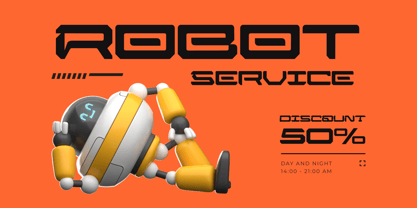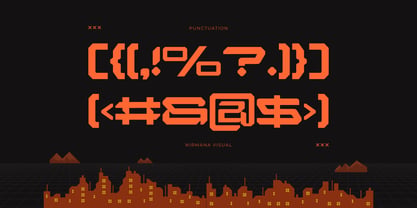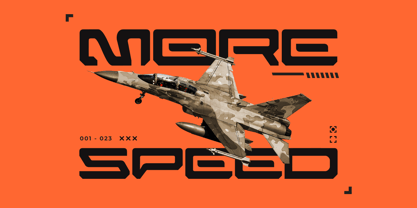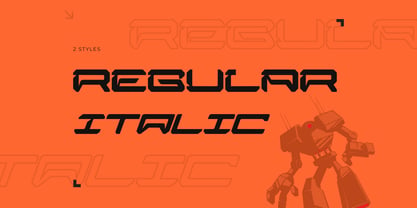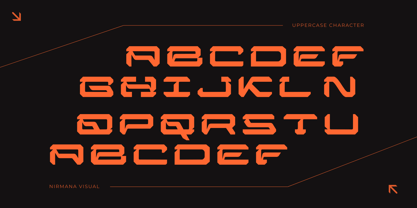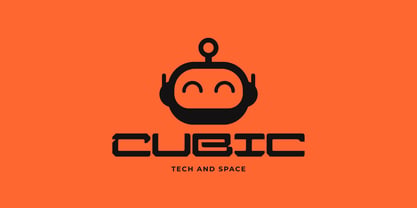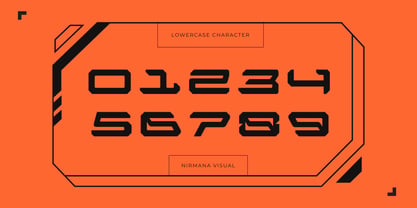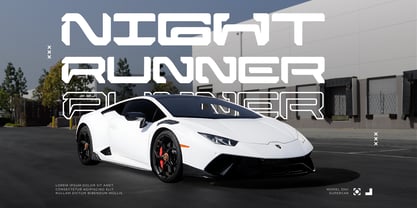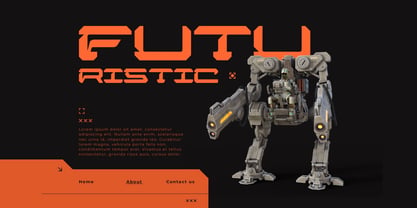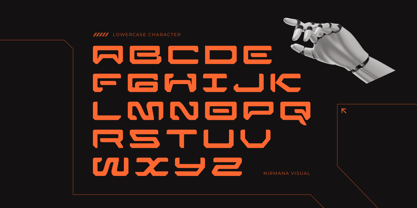
Zirox Cyberpunk
by Nirmana Visual
The Zirox Cyberpunk Font Family was designed by Sigit Dwipa and published by Nirmana Visual. Zirox Cyberpunk contains 2 styles and family package options. More about this family
Zirox Cyberpunk is a futuristic techno font designed for bold logo branding and high-impact visuals. Inspired by the neon-lit world of cyberpunk, Zirox combines sharp edges and sleek lines to create a modern, digital feel. Perfect for gaming, tech startups, or sci-fi themed projects, this font delivers a strong, edgy presence that stands out. Elevate your brand with the high-tech energy of Zirox Cyberpunk.
Designers: Sigit Dwipa
Foundry: Nirmana Visual